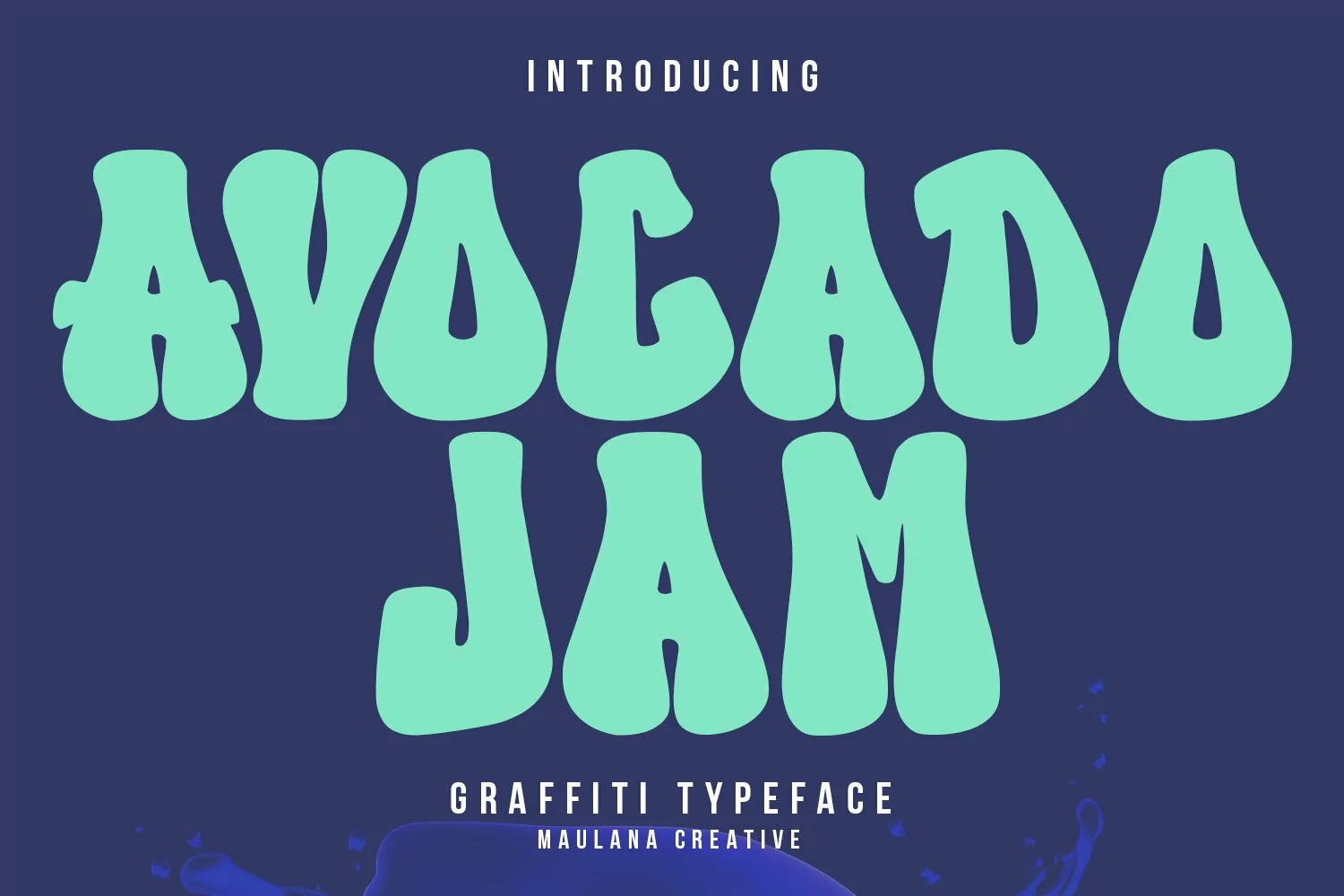
Avocado Jam graffiti typeface display font. Heavy stroke, fun character with a bit of ligatures. To give you an extra creative work. Avocado Jam graffiti typeface display font support multilingual more than 100+ language. This font is good for logo design, Social media, Movie Titles, Books Titles, a short text even a long text letter and good for your secondary text font with script or serif. Make a stunning work with Avocado Jam graffiti typeface display font.